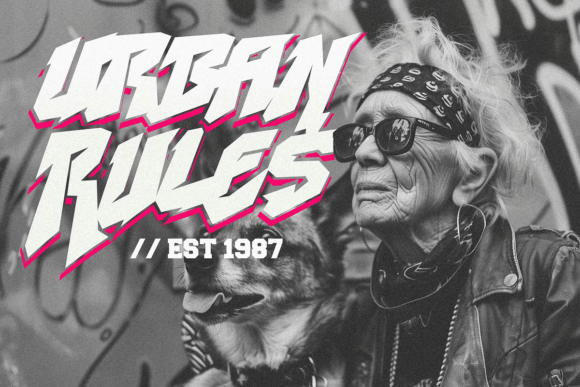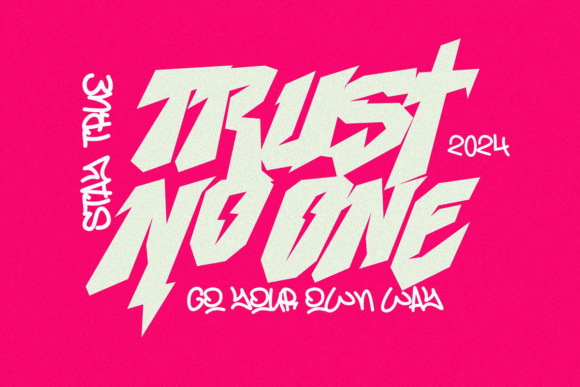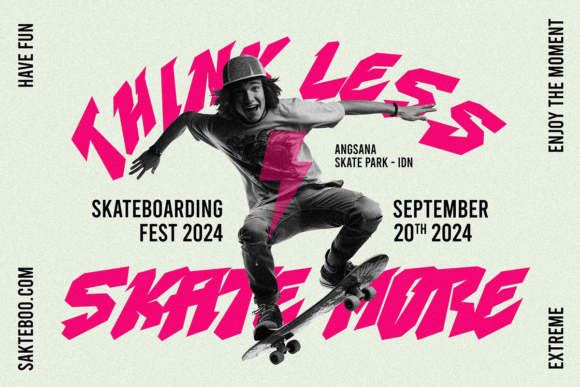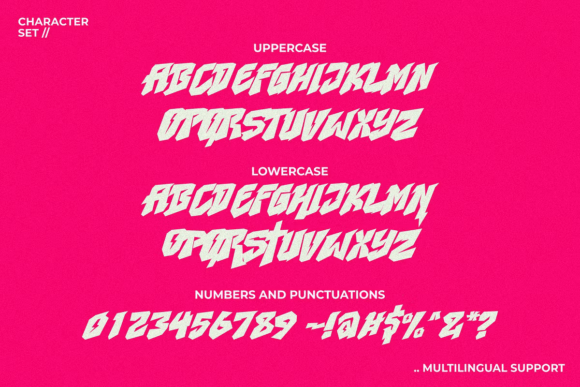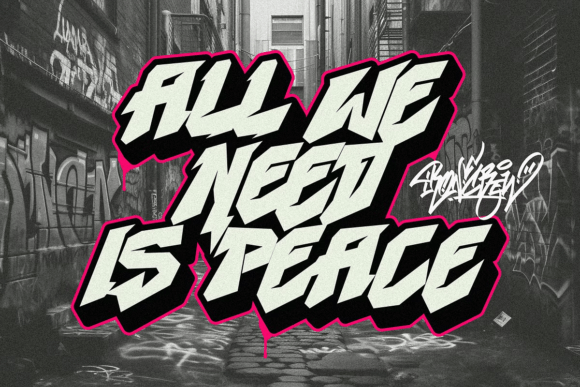
Introduction to Noah Project Font
Ignite your designs with Noah Project – the freestyle graffiti font that unleashes urban creativity and rebellious spirit.
Beyond the confines of streetwear and fashion, Noah Project is a dynamic tool for crafting bold and authentic designs across a spectrum of projects Transform your designs into dynamic urban masterpieces with Noah Project – where graffiti meets typography, and creativity knows no bounds.
Key Features of Noah Project Font
Why Choose Noah Project Font?
Noah Project Font offers exceptional quality and versatility, making it a valuable addition to your design toolkit. Whether you’re creating for personal projects or commercial use, Noah Project Font delivers professional results.